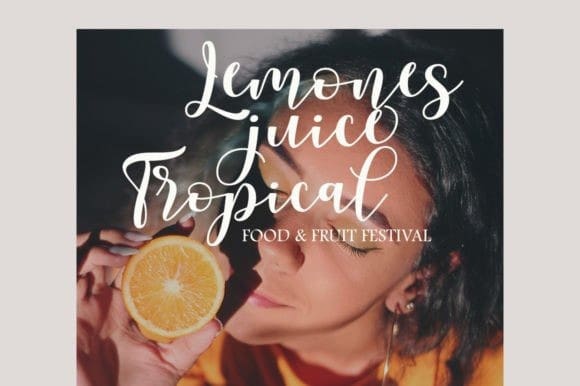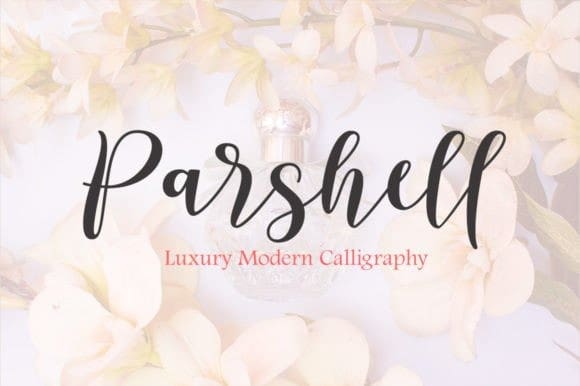
Parshell Font
Parshell Font is a beautiful and stylish script font with a modern look. Its natural strokes add visual flair to any design project, from invitations to certificates. Is the perfect font for adding a classic touch to your projects while maintaining an authentic, handwritten look.